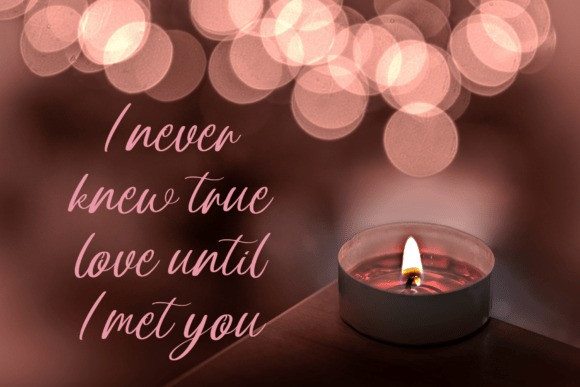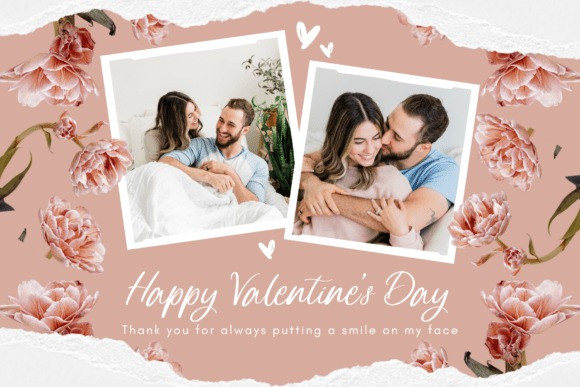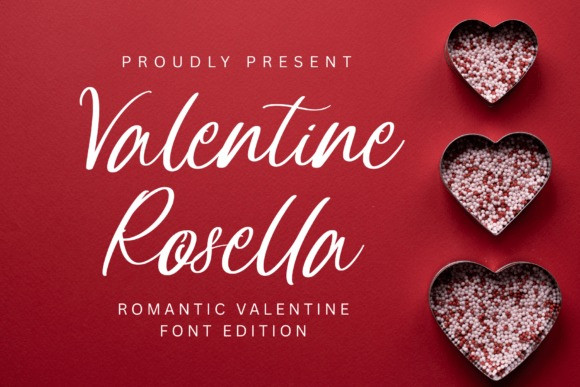
Valentine Rosella Font
Valentine Rosella Font is a romantic and elegant script font with smooth, flowing strokes. It brings a soft, feminine, and warm feel to your designs.Perfect for quotes, wedding invitations, Valentine projects, branding, logos, social media, packaging, and creative designs. Valentine Rosella adds a touch of love and elegance to any visual style.